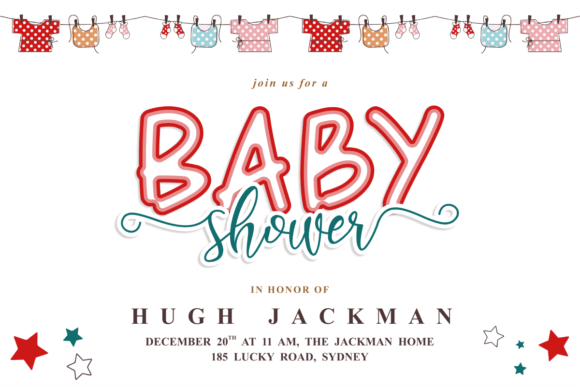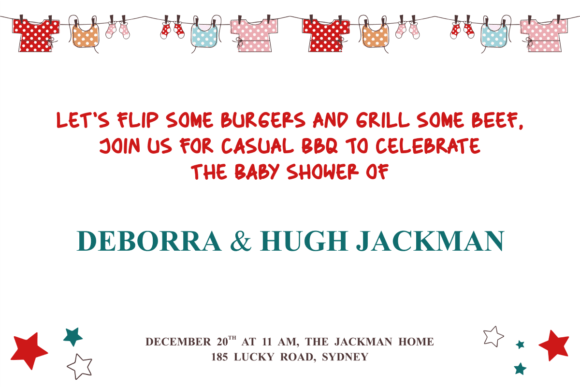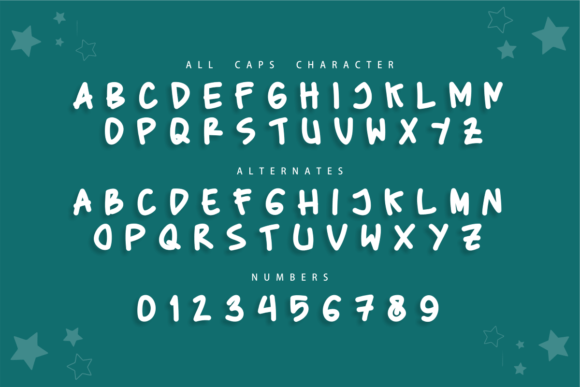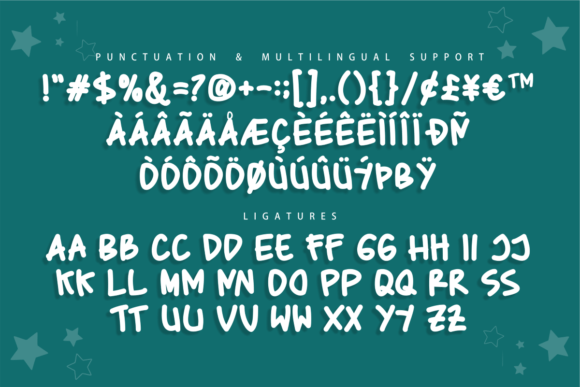
Bring a Touch of Whimsy to Your Designs
Who hasn’t experienced that moment of pure creative joy, when a font catches your eye and sparks an idea for a new project? For designers, finding the perfect font can be a game-changer. It’s the difference between a mediocre design and a truly stunning one. And that’s exactly what the Baby Marker Font aims to deliver.
This quirky and whimsical handwritten font is designed to add a touch of personality to your work. Whether you’re creating letterheads, titles, or stationery, Baby Marker Font is sure to bring a smile to your face and a dash of creativity to your designs. As a designer, you know how valuable it is to have a unique and versatile font in your arsenal, and Baby Marker Font is a valuable addition to any collection.
Baby Marker Font Key Features
- Font Style: Casual, Handwritten, and Script
- Unique Characteristics: The font features irregular lines, random imperfections, and subtle texture, giving it a natural and hand-drawn look
- Usage: Suitable for baby-related designs, invitations, and other creative projects that require a playful and personal touch
Baby Marker Font Review
Overall, I’m impressed with the unique, playful feel of the Baby Marker Font. It’s perfect for designing children’s books, nursery decor, or any project that needs a fun, whimsical touch.
- The font’s rounded edges and soft curves give it a friendly, approachable vibe that’s perfect for kids’ content.
- The font is highly customizable, with a wide range of colors and styles to choose from.
- The font is well-suited for digital and print projects, with clear, legible lines that hold up well at various sizes.
- The font may be too playful for more formal or professional projects, where a more serious tone is needed.
- The font’s rounded edges can make it difficult to read in certain contexts, such as small text or complex layouts.
- The font’s customization options can be overwhelming, making it difficult to choose the perfect style and color combination.
In conclusion, the Baby Marker Font is a great choice for designers who want to add a playful touch to their projects. While it may have some limitations, its unique feel and high level of customization make it a valuable addition to any designer’s toolkit.
Getting the Most Out of Baby Marker Font
For optimal results, use Baby Marker Font in bold, cursive, or handwritten projects. Experiment with different font sizes, colors, and styles to achieve a unique look.
Baby Marker Font is ideal for:
– Children’s party invitations
– Handwritten-style quotes or sayings
– Personalized gift tags or cards
– Handwritten-style journaling or scrapbooking
Alternatives to Baby Marker Font for Designers
Great Vibes is a beautiful, handwritten script font that resembles Baby Marker Font in its flowing, cursive style. It’s perfect for creating a playful, energetic feel in designs such as invitations, posters, and social media graphics. While Great Vibes is more elegant and refined than Baby Marker Font, it still conveys a sense of informality and friendliness.
Pacifico is a modern, elegant script font that shares some similarities with Baby Marker Font in its flowing, connected strokes. It’s ideal for designs that require a touch of sophistication, such as branding, packaging, and editorial content. Unlike Baby Marker Font, Pacifico has a more refined, polished look that’s perfect for high-end designs.
Alice
Alice is a classic, elegant script font that’s similar to Baby Marker Font in its flowing, cursive style. It’s perfect for creating a sophisticated, refined feel in designs such as wedding invitations, menus, and luxury branding. While Alice is more elegant and refined than Baby Marker Font, it still has a warm, personal touch.